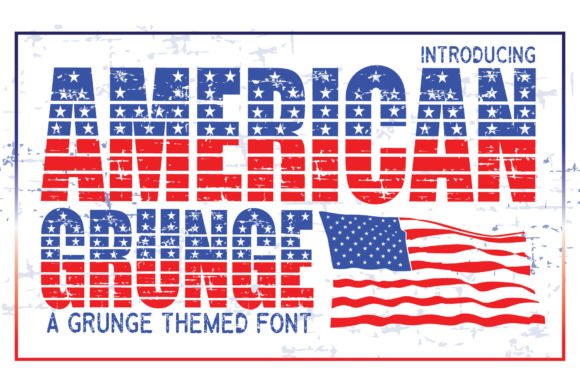
The Birth of a New Design Movement: American Grunge Font
Have you ever been working on a design project, pouring your heart and soul into it, only to feel like something’s missing? That’s exactly what happened to me when I stumbled upon the American Grunge Font. It was like a breath of fresh air, a spark that ignited a creative fire within me.
This bold, display font is not just a pretty face – it’s a powerful tool designed to capture the essence of speed, sports, and the unbridled energy of the American spirit. With its unique blend of cool and festive vibes, the American Grunge Font is the perfect companion for designers looking to create eye-catching designs that leave a lasting impression.
Whether you’re working on a sports-themed project or simply want to add some excitement to your design, the American Grunge Font is a valuable addition to your toolkit. So, what are you waiting for? Dive in, have fun, and explore the endless variations of this incredible font!
American Grunge Font Key Features
• Font Family: A distressed, rough, and vintage-inspired font family with multiple styles, including Regular, Italic, Bold, and Bold Italic.
• Unique Characteristics: The American Grunge Font features a distressed, worn look with subtle texture and imperfections, giving it a unique, handmade feel.
Designer Review: American Grunge Font
I’ve worked with a lot of fonts, but the American Grunge Font is definitely one of the more interesting ones I’ve come across. ✨ Here are some of its strengths:
• It’s got a great, authentic vibe – the kind of look that screams “90s grunge” and instantly evokes images of flannel shirts and alternative music.
• The font is highly customizable, with a wide range of options for adjusting the texture, color, and overall appearance.
• It’s perfect for creating eye-catching, attention-grabbing headlines and titles – the font’s bold, rugged style is sure to draw people in.
Of course, no font is perfect, and the American Grunge Font has its limitations. ⚠️ Here are a few things to keep in mind:
• The font can be a bit overwhelming at larger sizes – the bold lines and rough texture can make it hard to read.
• It’s not suitable for large blocks of text – the font’s rough style can make it difficult to read long passages.
• The font may not be the best choice for corporate or formal designs – its rough, grungy style may not fit with a more traditional or professional aesthetic.
Overall, I’d say the American Grunge Font is a great choice for designers who are looking for a bold, attention-grabbing font with a unique, authentic vibe. Just be sure to use it judiciously – it’s not a font for every occasion!
American Grunge Font is ideal for creating a laid-back, casual vibe in your designs. Use it for music festival flyers, concert posters, or streetwear brand logos. It’s also great for creating a nostalgic feel in your designs, reminiscent of the 1990s grunge movement.
To get the most out of American Grunge Font, experiment with different font sizes, colors, and combinations with other fonts. Use it in conjunction with distressed textures and effects to enhance the grunge look. Don’t be afraid to push the limits and try out unconventional uses for the font.